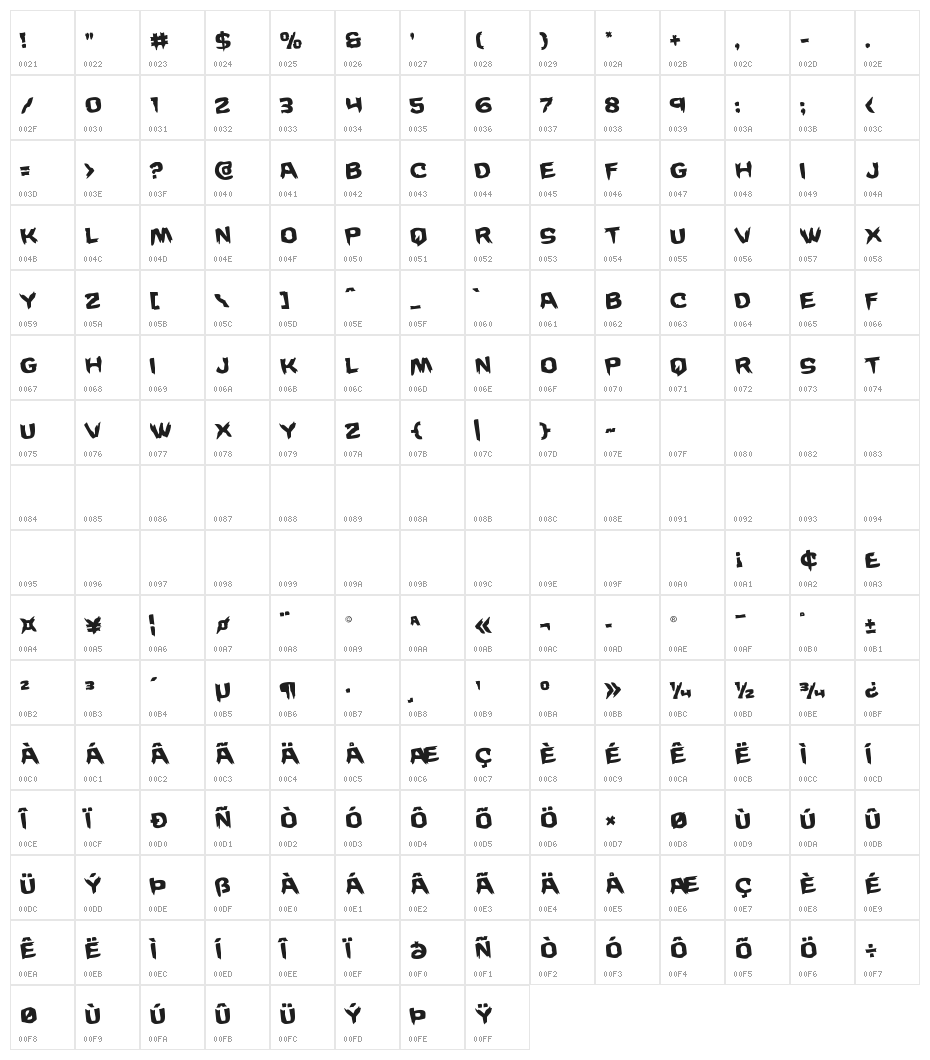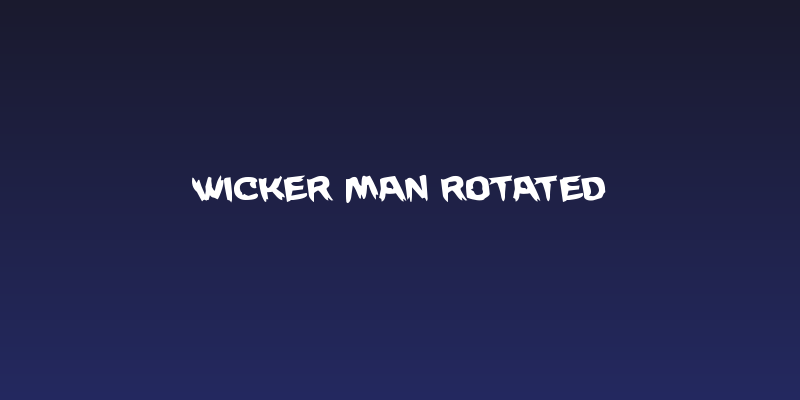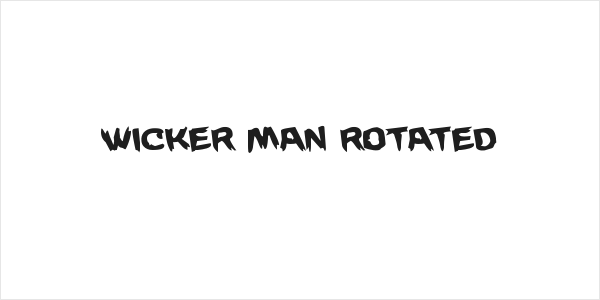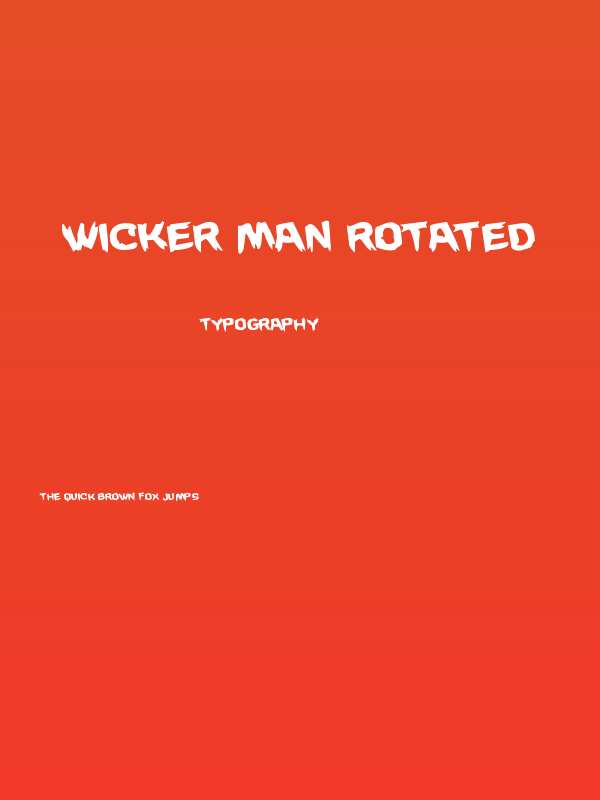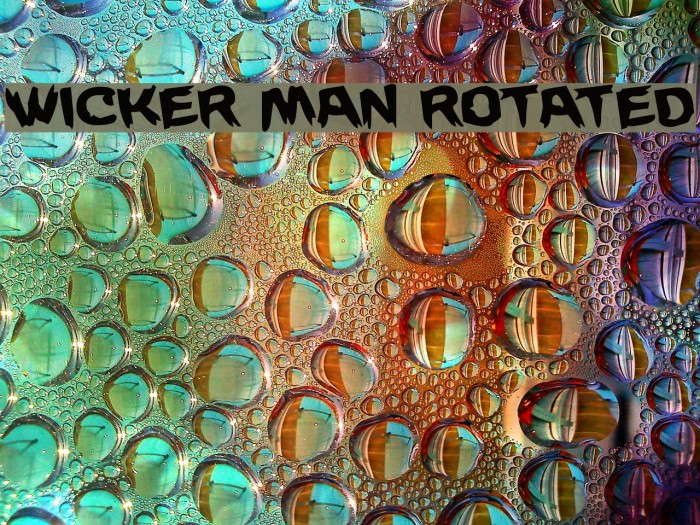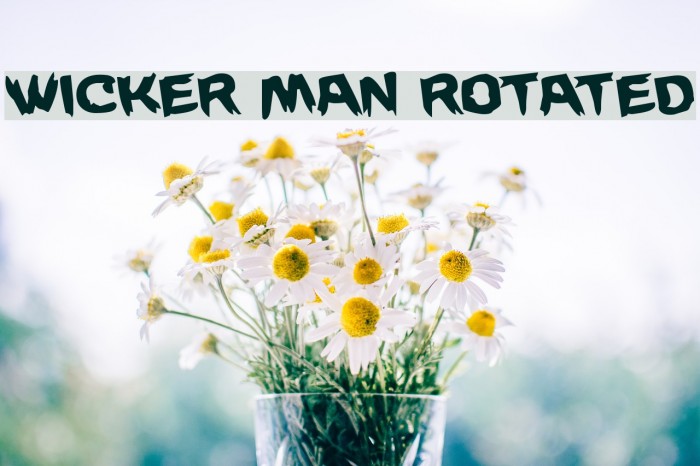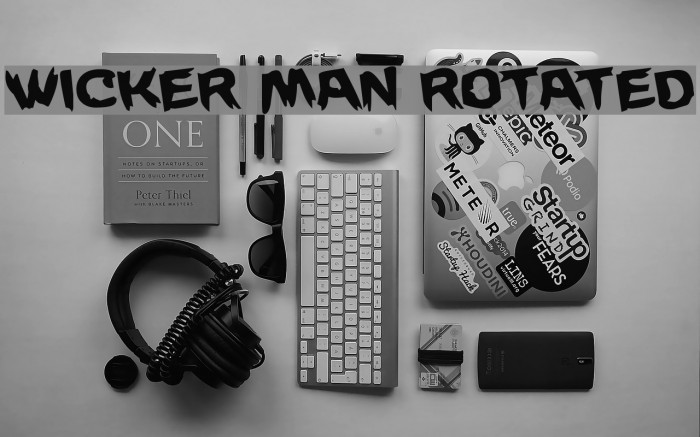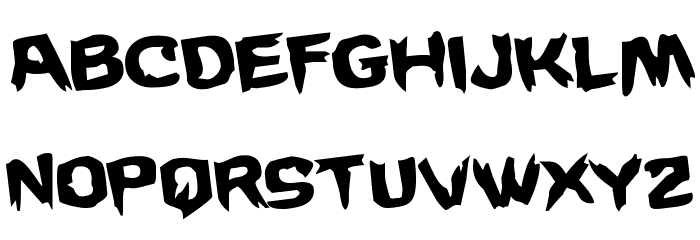
Wicker Man Rotated Font
Wicker Man Rotated Description
This font features a bold and dynamic style with sharp, jagged edges that give it an aggressive and energetic appearance. The characters are heavily stylized, with irregular shapes and angles that create a sense of movement and intensity. This design is reminiscent of graffiti or street art, making it stand out with its unique and edgy aesthetic. The uppercase and lowercase letters maintain a consistent theme, while the numbers and special characters are equally bold and expressive. This font is ideal for projects that require a strong visual impact and a sense of rebellion or unconventionality.
| Overall Style | Modern, Edgy |
| Proposed Projects | Ideal for album covers, posters, streetwear branding, and event flyers. |